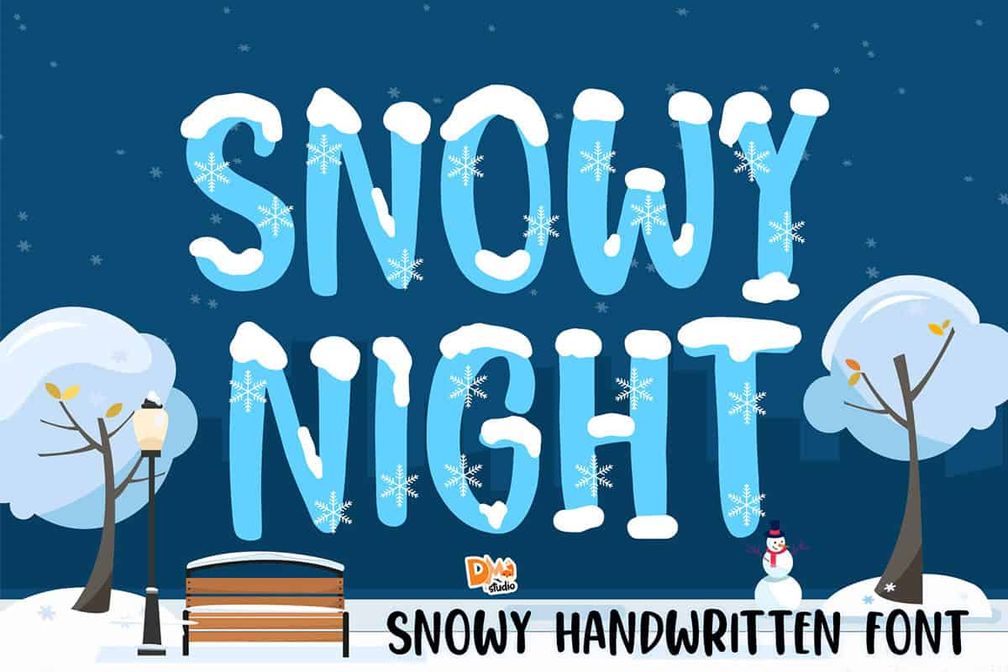
Snowy Night – Snowy Handwritten Font
Snowy Night
It’s a friendly handwritten sans, comes in all caps and snow overlay.
Fun for your winter designs or even for any designs!
Features :
– All in caps
– Numerics
– Symbols
– Multilingual Support
– Snow Overlay font file